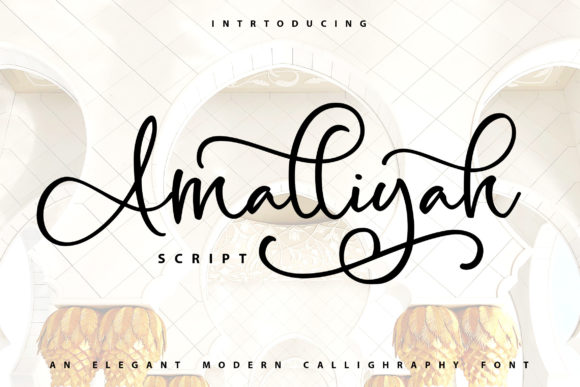
The Amalliyah Font: A Dainty and Vintage Script for Your Designs
I’ll never forget the time I was working on a project for a client who wanted a vintage-inspired logo. I had spent hours browsing through font libraries, but nothing seemed quite right. That was until I stumbled upon the Amalliyah font. Its dainty and elegant script style immediately caught my eye, and I knew I had found the perfect fit. In this article, I’ll share my experience with the Amalliyah font, its features, and how to make the most of it in your designs.
An Honest Review of Amalliyah Font
The Amalliyah font has quickly become one of my go-to fonts for design projects. Here’s what I love about it:
• ✨ Dainty and elegant script style: Amalliyah has a unique, vintage-inspired look that’s perfect for designs that require a touch of sophistication.
• ✅ PUA encoded: The font is PUA encoded, which means you can access all glyphs and swashes with ease. This makes it incredibly versatile and easy to use.
• ✅ Endless possibilities: With its range of glyphs and swashes, you can create unique and creative designs that stand out.
While the Amalliyah font is amazing, there are a few small quirks to be aware of:
• 🤔 Some characters may require manual adjustment: Depending on the design, you may need to adjust the spacing or kerning of certain characters to get the perfect look.
• ⚠️ Not suitable for body text: Due to its script style, Amalliyah is best used for headings or titles. It may not be the best choice for body text.
The Designer Inspiration Behind Amalliyah
The Amalliyah font was inspired by the elegant scripts of the past. Its designer wanted to create a font that captured the essence of vintage typography, while still being modern and versatile. The result is a font that’s perfect for designs that require a touch of sophistication and elegance.
A: PUA (Private Use Area) encoding is a way of encoding fonts that allows for a wide range of glyphs and swashes to be accessed. This makes it easier to create unique and creative designs.
Q: Is Amalliyah suitable for body text?
A: No, Amalliyah is best used for headings or titles. Its script style can be difficult to read for body text, so it’s best to use a sans-serif font for longer blocks of text.